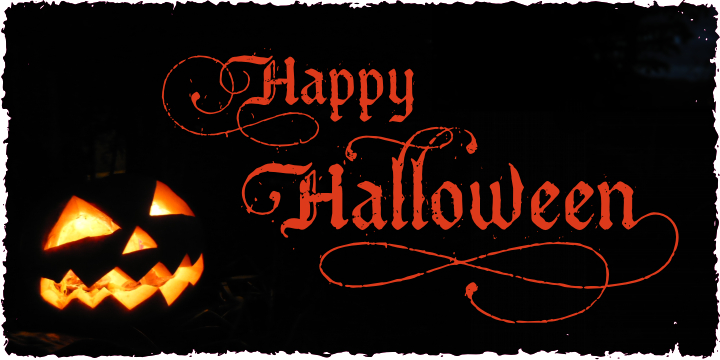
HomeBlackletter FontsBucanera Antiqued Family Font Blackletter Fonts Bucanera Antiqued Family Font FacebookXPinterestWhatsApp 1 of 1 About Bucanera Antiqued Family Font Bucanera is a dirty but ornamented blackletter typeface. Perfect for those who like to be creative! DOWNLOAD ON CREATIVE FABRICAThis font is sold and delivered by Creative Fabrica. Font Canyon may earn a commission if you buy through this link. People also explored Thirty Duo Font Shafira Confirate Font Amotte Font Battle Universe Font Daisy Font Capture Font Dandelion Font Nikyta Font Oturllis Font 439 0 TagsBucanera Antiqued Family Font Previous articleWhisky Family FontNext articleMillennium Font LEAVE A REPLY Cancel reply Comment: Please enter your comment! Name:* Please enter your name here Email:* You have entered an incorrect email address! Please enter your email address here Website: Save my name, email, and website in this browser for the next time I comment. Personal Use Free Bethania Personal Use Free Read more about this font True Love Personal Use Free Read more about this font Sweety Blue Personal Use Free Read more about this font Orchid Personal Use Free Read more about this font BLOG The 10 Best Handwriting Fonts to Add Personality to Your Designs 10 of the Best Handwriting Fonts for Adding Personality to Your Designs There will undoubtedly be no other better choice than handwriting fonts to give... Exploring Font Trends Transform Your Website: Elevate Your Typography with 7 Best Web Font Generators Free vs Paid Fonts: Why Investing in Premium Fonts Is Worth It